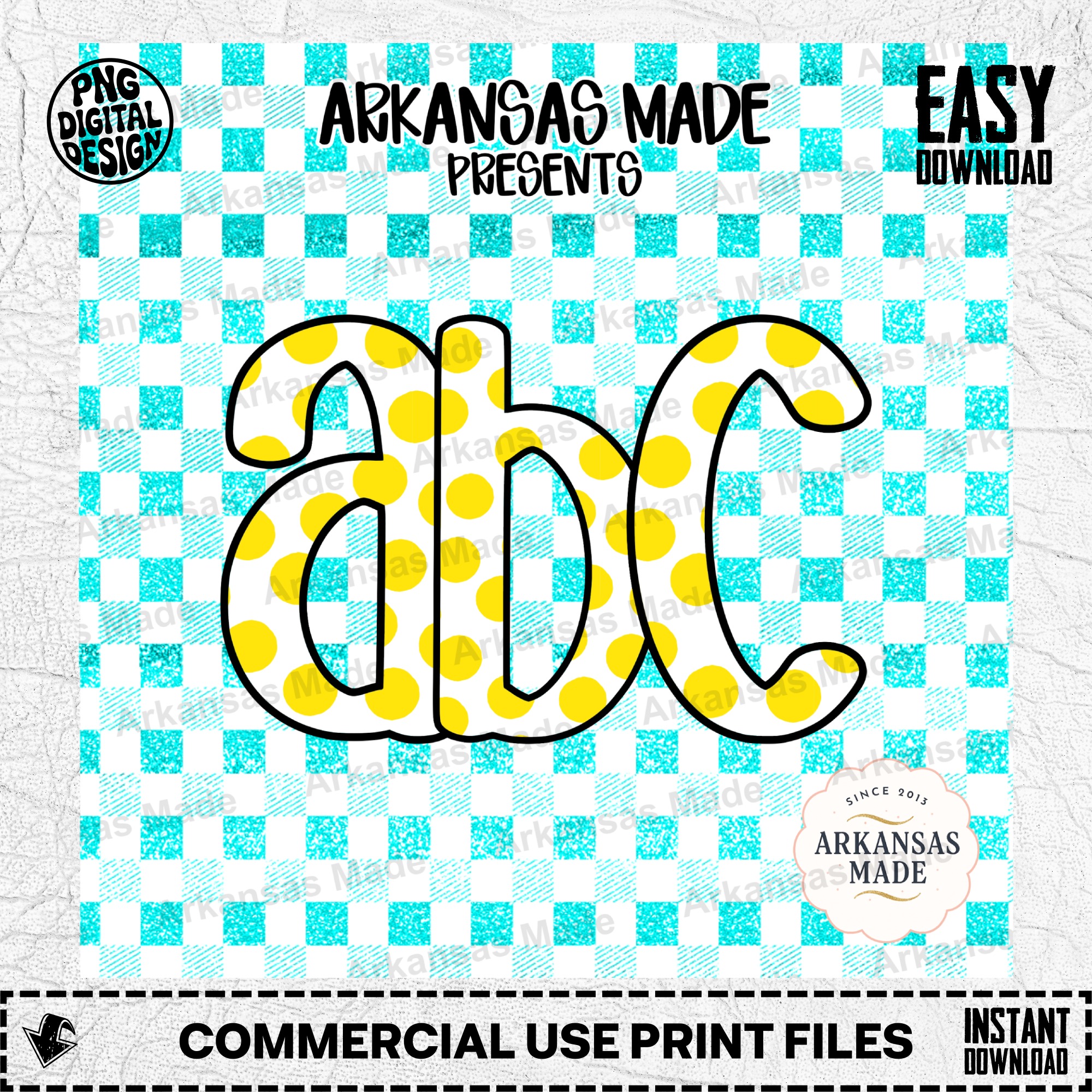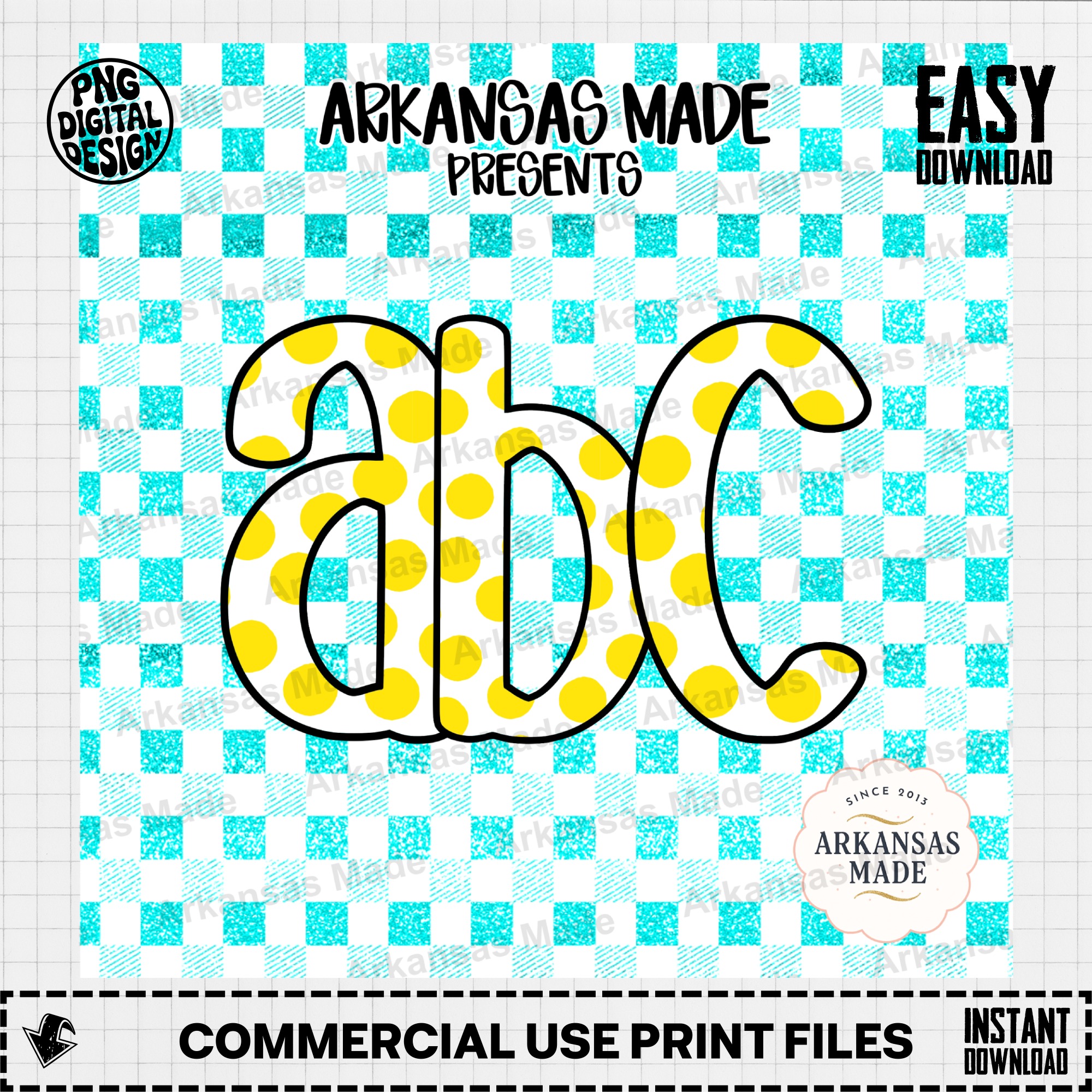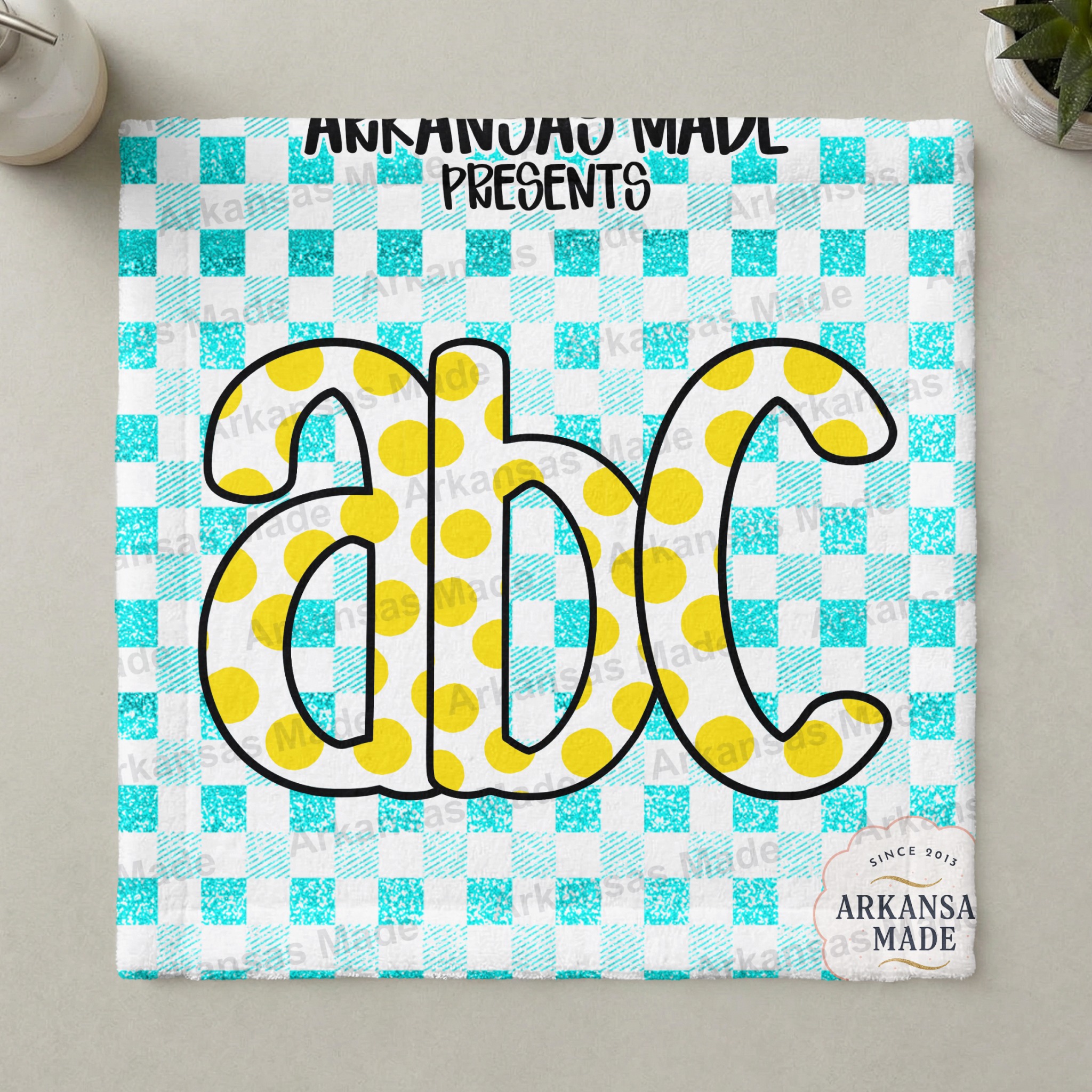
Unlock creativity with this vibrant Polka Dot Alphabet PNG Digital Download Alpha Set, perfect for adding a cheerful touch to all your crafting projects! Featuring playful yellow polka dots, striking teal gingham, and a faux glitter effect, this versatile letter clipart is ideal for teachers, crafters, and DIY enthusiasts. Create personalized gifts, stunning classroom decor, unique party supplies, or charming nursery art with ease. An instant digital download, it’s ready to elevate your designs for any special occasion or daily creative venture.